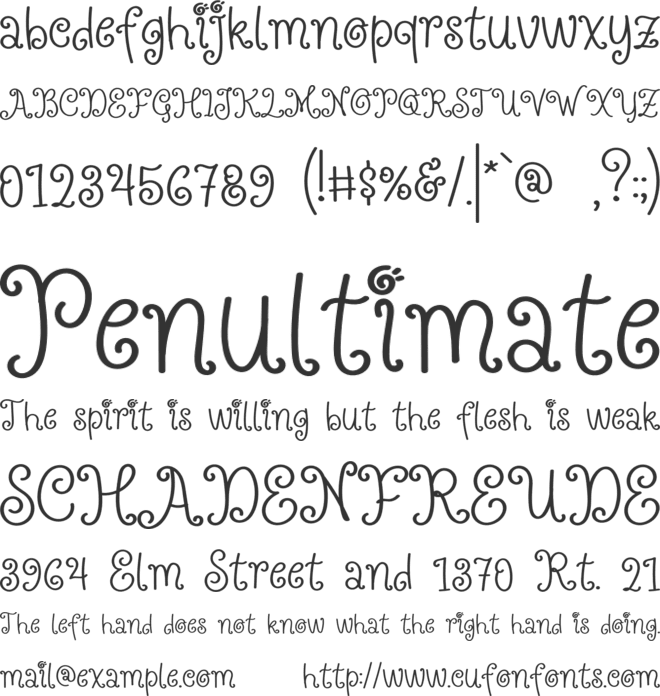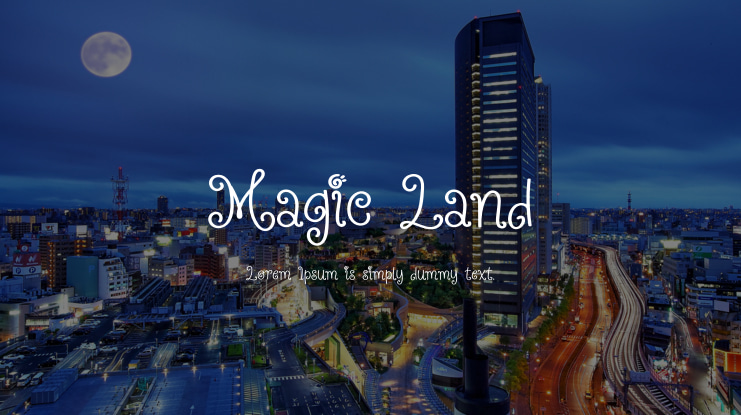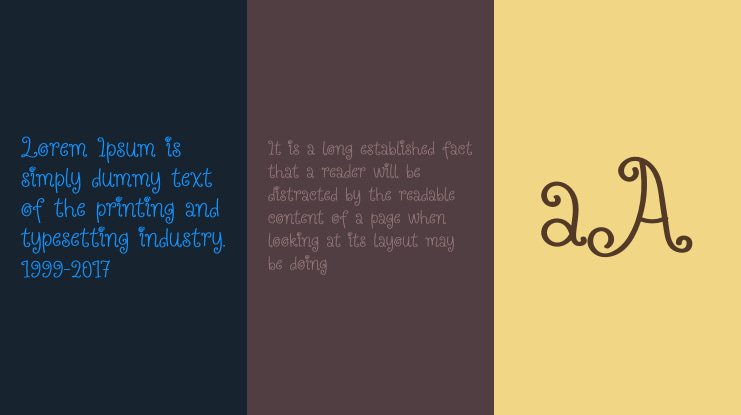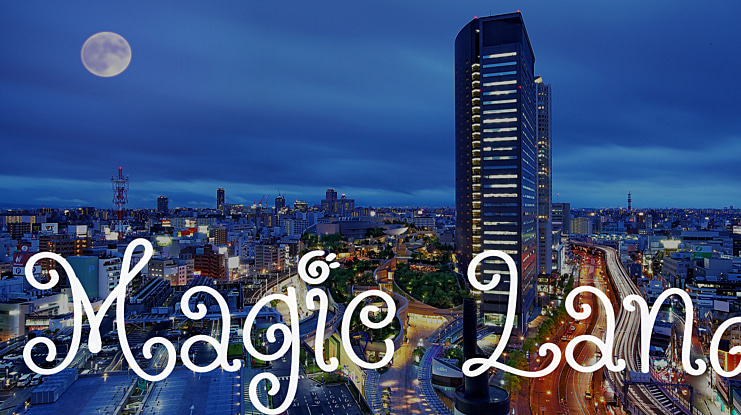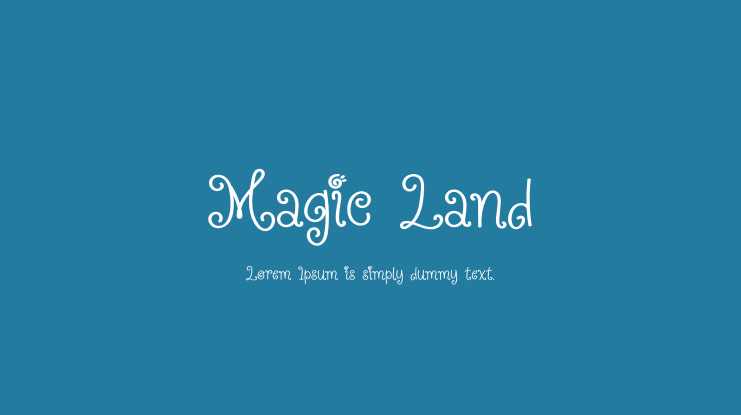
Magic Land Font
Magic Land is a whimsical and quirky handwritten font. Add this adaptable and informal handwritten font to each of your creative ideas and notice how they come to life.